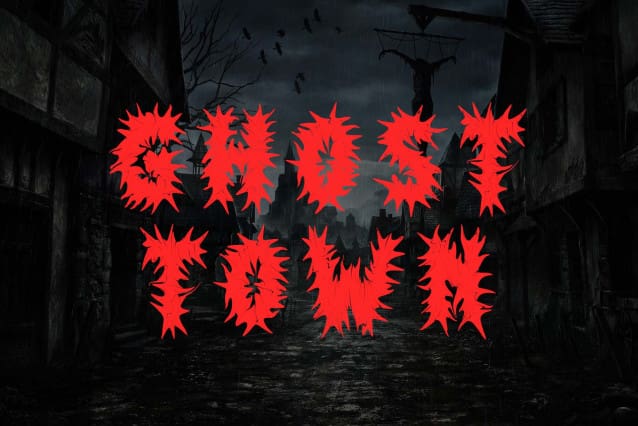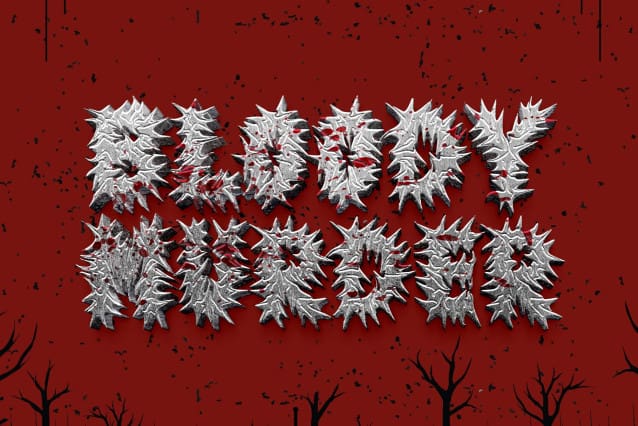
Death Prison Font
Death Prison Font is a special edition font with a unique horror theme with thorns on each letter. Equipped with uppercase letters, lowercase letters, numerals, punctuations and multilingual support. Very suitable for film titles, book covers, metal concerts, horror, spooky, Halloween and others.